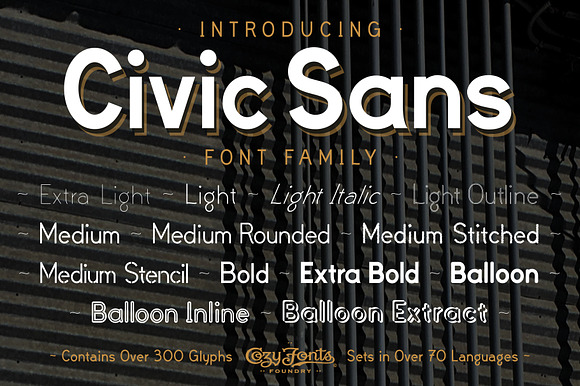
Civic Sans Font Family
Complete 13 Font Family Package! Each font contains one 300 glyphs. This matching set, including 5 customized versions, eg., Stitched, Stencil, Balloon, Inline, & Extract. A family that contains The Classic, Elegant 'Extra Light', The Standard, Universal 'Medium', The Embroidered 'Stitched' to the Optically Wild 'Extract'. The inspiration for The Civic Sans Font Family is every city you can think of. Intended for signage, billboards, stores, directions, notices, branding, etc. Clean, crisp, evenly balanced and in each weight from Extra Light to Extra Bold it spans the possibilities with the added Light Outline, and the other 5 custom versions, mentioned above, Civic Sans is consistent of form while full of creative applications! Try it it's NEW!
- Complete 13 Font Family Package!
- Each font contains one 300 glyphs.
- A family that contains The Classic, Elegant 'Extra Light', The Standard, Universal 'Medium', The Embroidered 'Stitched' to the Optically Wil